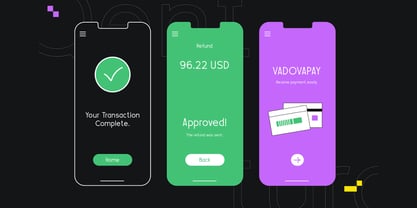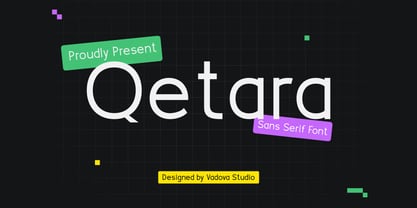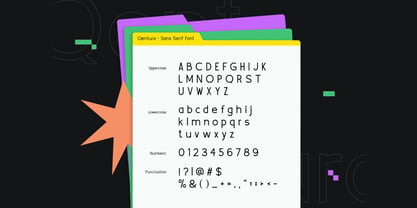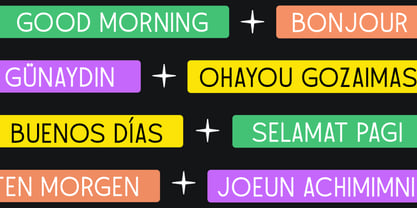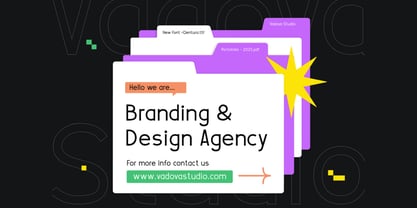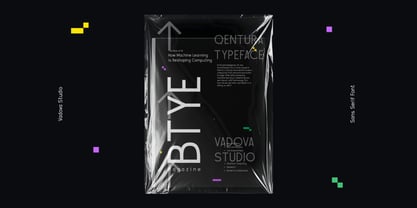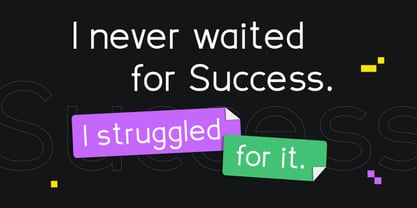
Qetara
by Vadova Std
The Qetara Font Family and published by Vadova Std. Qetara contains 1 styles. More about this family
Qentura is a modern sans serif font with clean lines, balanced proportions, and a minimal visual structure. The letterforms are simple, precise, and highly readable, giving the font a contemporary and professional appearance. Its neutral design makes it flexible for both digital and print applications. Qentura is crafted to deliver clarity, modernity, and functional elegance in typography. Suitable for modern branding, UI and UX design, website headers, app interfaces, startup branding, corporate identities, presentations, dashboards, technology products, digital marketing materials, clean logos, infographics, and professional layouts that require a clear and modern sans serif style.